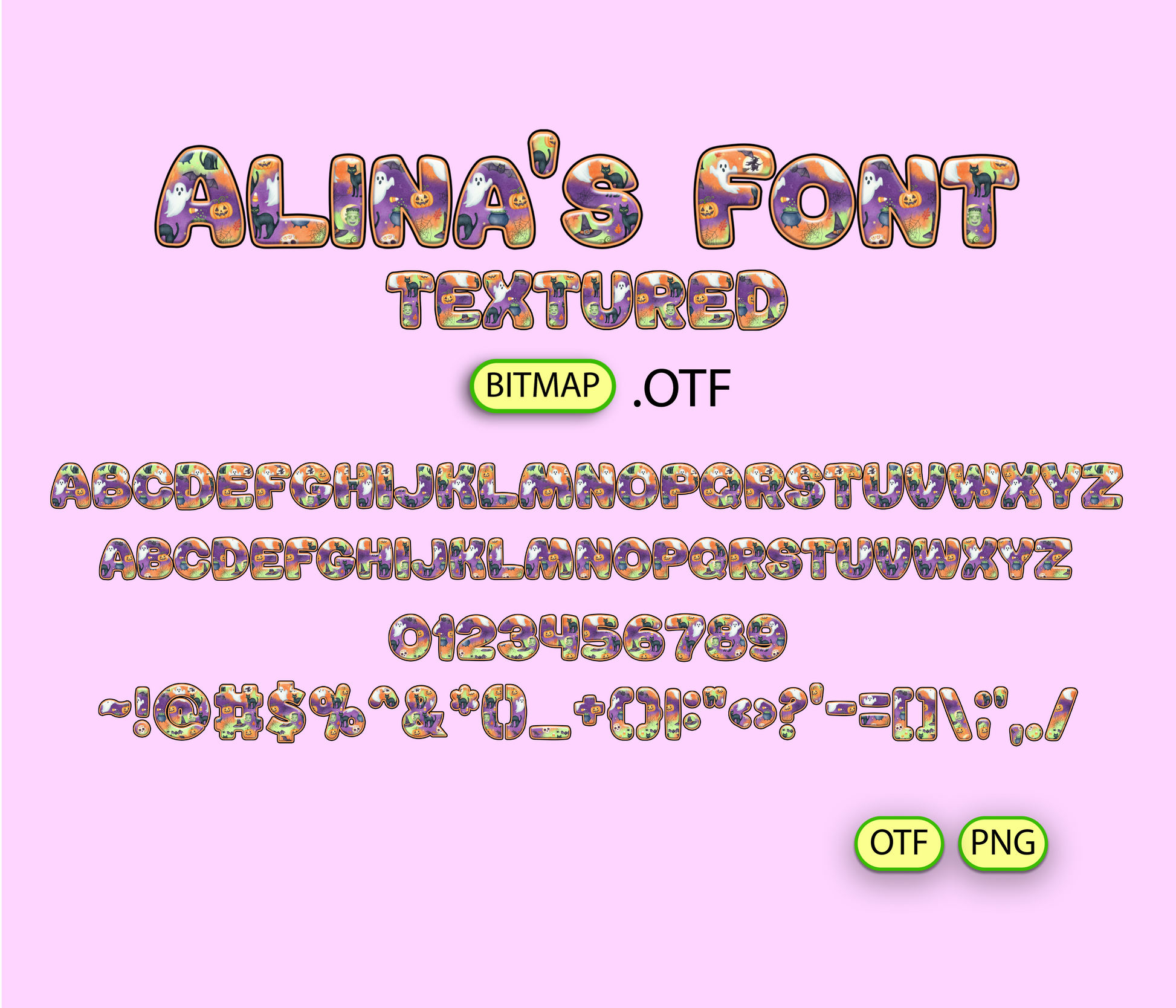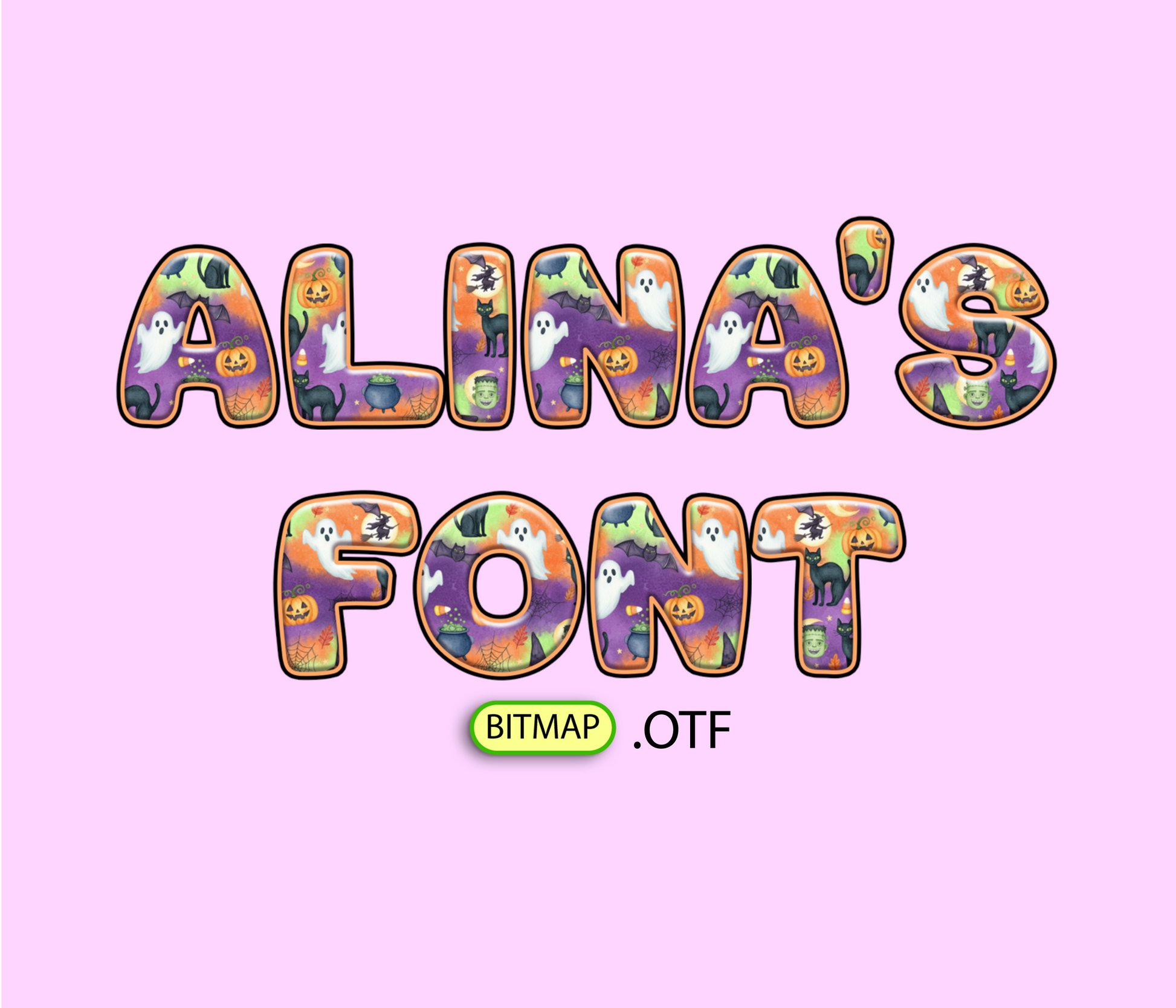
Adorable Specters Pattern Font
Step into the whimsical world of friendly spirits with our Adorable Specters font, capturing the essence of charming phantoms and cozy autumn celebrations. Perfect for Halloween enthusiasts, party planners, event organizers, and designers, this font brings the playful, heartwarming spirit of gentle ghosts to your projects. Create delightful materials, merchandise, or digital content with the cheerful energy of sweet hauntings.
Our Adorable Specters font features soft, rounded lines and playful characters reflecting the world of friendly apparitions. Ideal for:
- Event Promotions: Create inviting invites, posters, and banners for Halloween parties, autumn festivals, and family gatherings that capture the spirit of charming ghosts
- Merchandise Design: Perfect for t-shirts, posters, and accessories that showcase the cozy aesthetic of gentle spirits and warm seasonal celebrations
- Digital Media: Enhance websites, blogs, and social media with whimsical headers and graphics that express the joy of friendly hauntings
- Seasonal Content: Add authentic flair to crafts, Halloween projects, and creative designs inspired by adorable phantom tales
- Personal Projects: Bring heartwarming excitement to scrapbooking, DIY crafts, and home decor inspired by the world of sweet specters
Our font pays tribute to the iconic world of friendly Halloween spirits, empowering your designs with its playful and cozy spirit. Whether crafting promotional materials, designing merchandise, or adding a whimsical touch to personal projects, this font communicates the cheerful essence of gentle ghosts. Ready to inject heartwarming charm into your creations? This font is your key to exciting, impactful design.